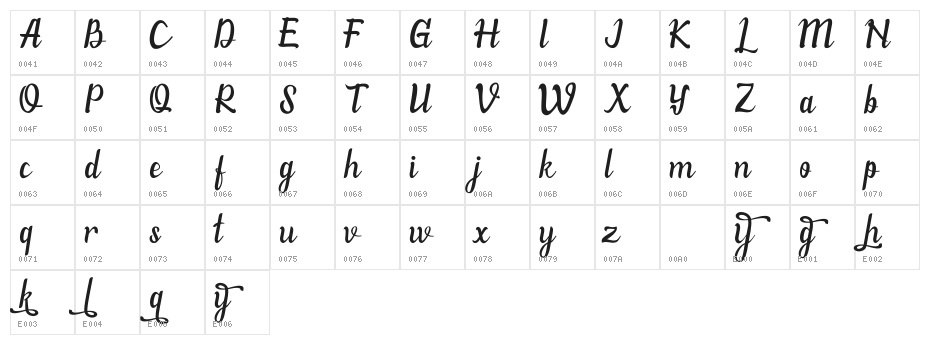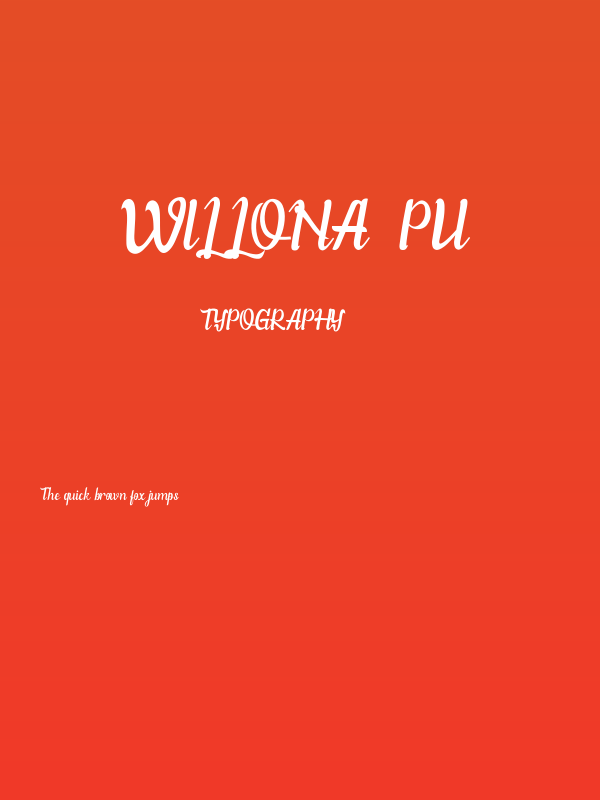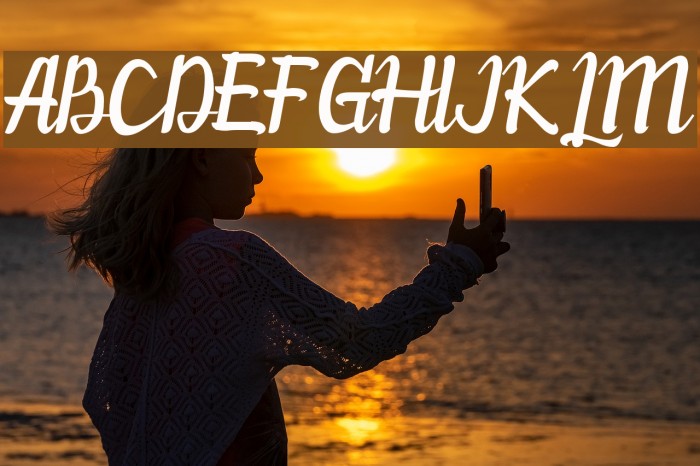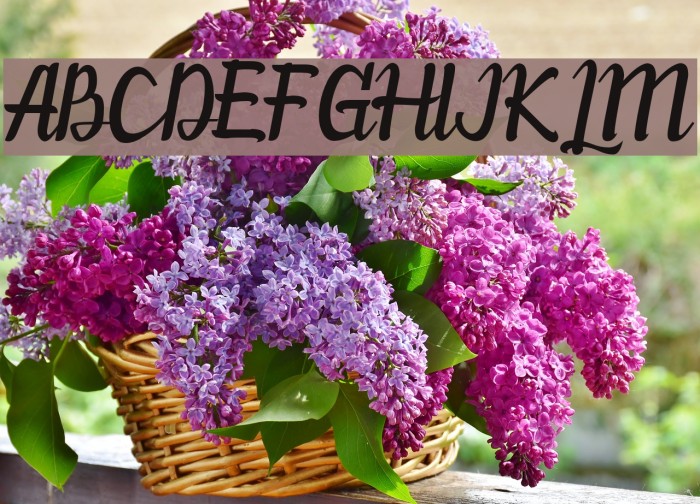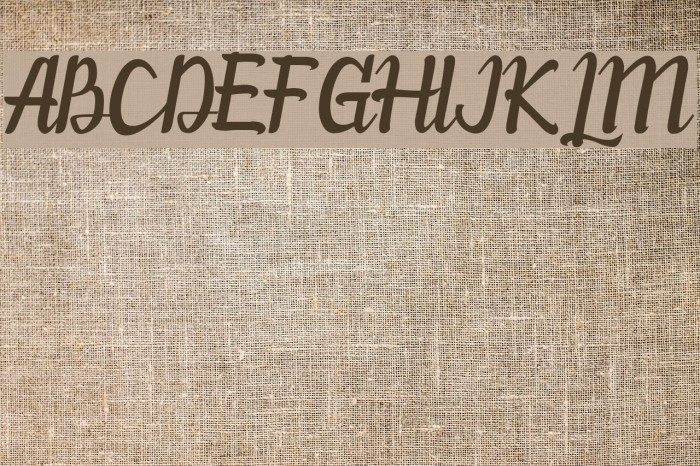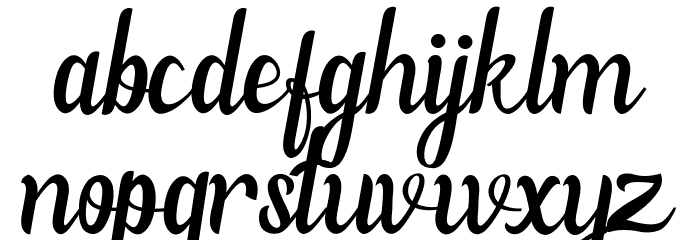
Willona - PU Font
Willona - PU Description
This font exudes a lively and dynamic feel with its flowing, cursive style. The letters are interconnected, creating a sense of continuity and movement. The strokes are bold and confident, with a slight slant that adds to its energetic appearance. The uppercase letters are elegantly crafted, with distinctive loops and curves that give them a unique personality. The lowercase letters maintain a consistent rhythm, enhancing readability while retaining the font's playful character. This font is well-suited for projects that require a touch of elegance and flair, making it ideal for invitations, branding, and creative designs.
| Use Case | Headlines, Logos, Invitations |
| Proposed Projects | Ideal for invitations, branding, creative designs, and decorative purposes. |